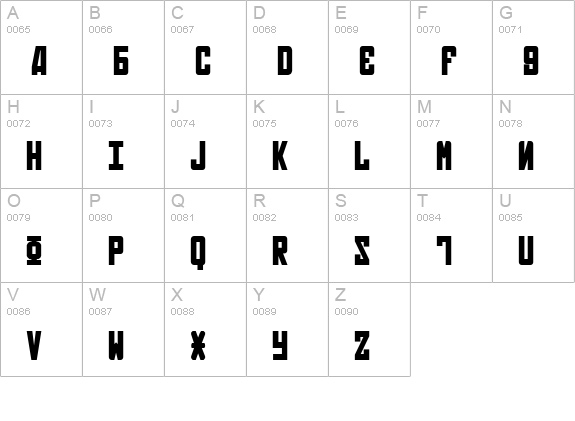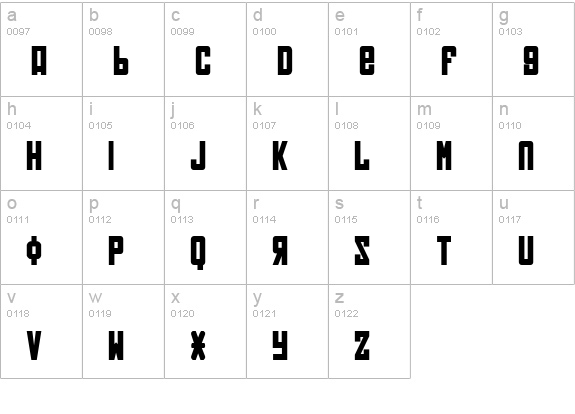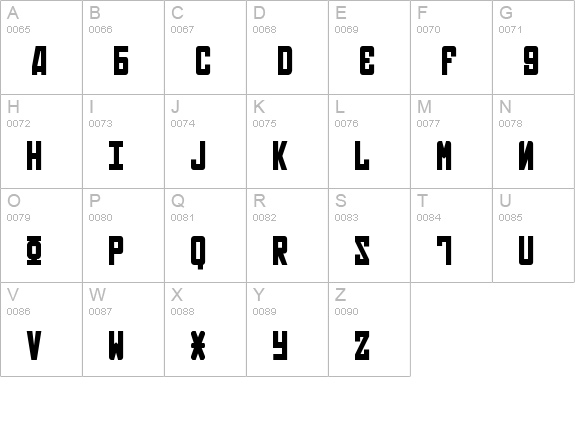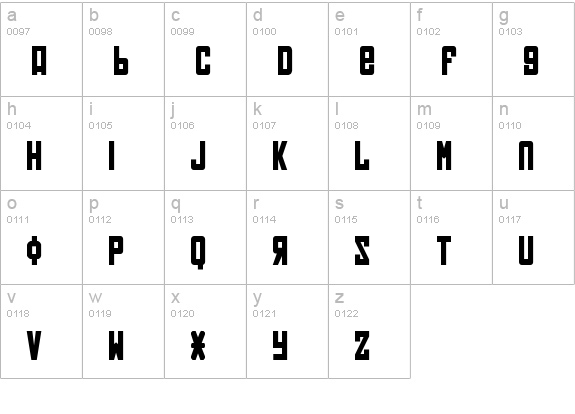
Soviet Bold is a strong, high-contrast variant in the Soviet typeface family \xE2\x80\x94 well suited to headlines, attention-grabbing titles, and strong calls-to-action.
Soviet Bold font is a striking and powerful typeface that exudes strength and confidence. Its bold and assertive design captures the essence of the Soviet era, making it ideal for projects that require a bold statement or a touch of historical nostalgia. With its thick and commanding letterforms, Soviet Bold demands attention and leaves a lasting impression. Whether used in headlines, posters, logos, or branding materials, this font instantly adds a touch of authority and impact to any design. What makes Soviet Bold even more appealing is that it is free to download at FontsMarket.com. Yes, you read that right, this exceptional font is freely available for anyone to use and enjoy. FontsMarket.com offers a wide range of high-quality fonts, and Soviet Bold is just one of the many gems that you can find on their website. So, if you're looking to add a touch of Soviet-inspired boldness to your designs, look no further than Soviet Bold font. Download it for free at FontsMarket.com and let its commanding presence elevate your projects to new heights.